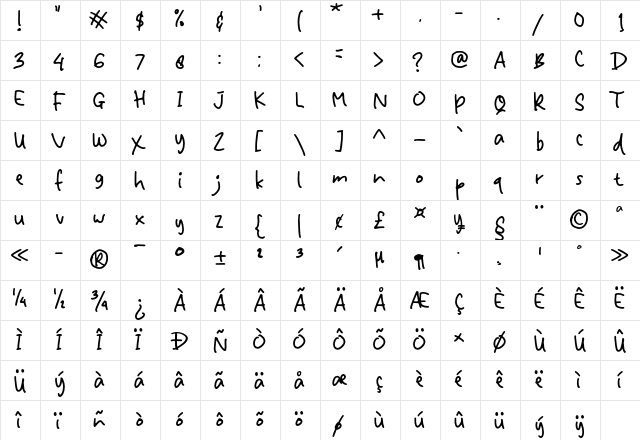
Secondhand Regular
| Designer | Sya'dan Ismail Rosyad |
Design Context for Secondhand Typeface
Secondhand flows with the natural rhythm of handwritten lettering, making it ideal for designs that call for warmth and personal expression.
Font Pairing: Combine Secondhand with a simple geometric sans for maximum contrast — the tension between flowing curves and clean structure is a classic typographic pairing.
Pro Tip: Pair Secondhand with a clean sans-serif for supporting text. The contrast between fluid script and geometric structure creates an elegant typographic hierarchy.